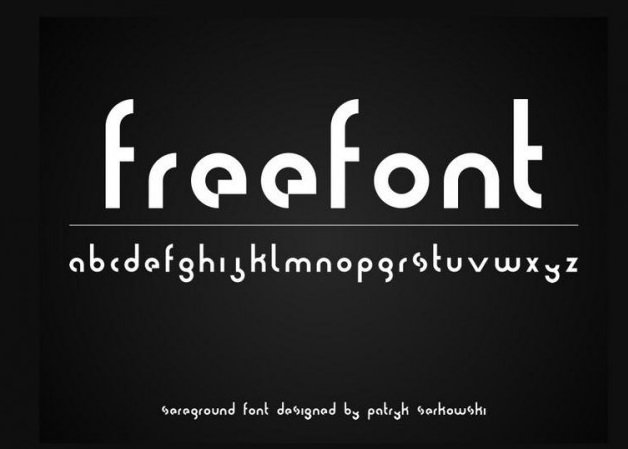
Sereq Display Font
Inspiring from space aircraft theme, Sereq Display Font was made with simple geometric shapes. Made from font designer named Patryk Serkowski. Sereq is a free rounded geometric font with unusual forms. It comes with two styles – Regular and Outline, contains uppercase and lowercase letters, supports Polish language. This font suits for posters, headlines, logos and other creative graphics.